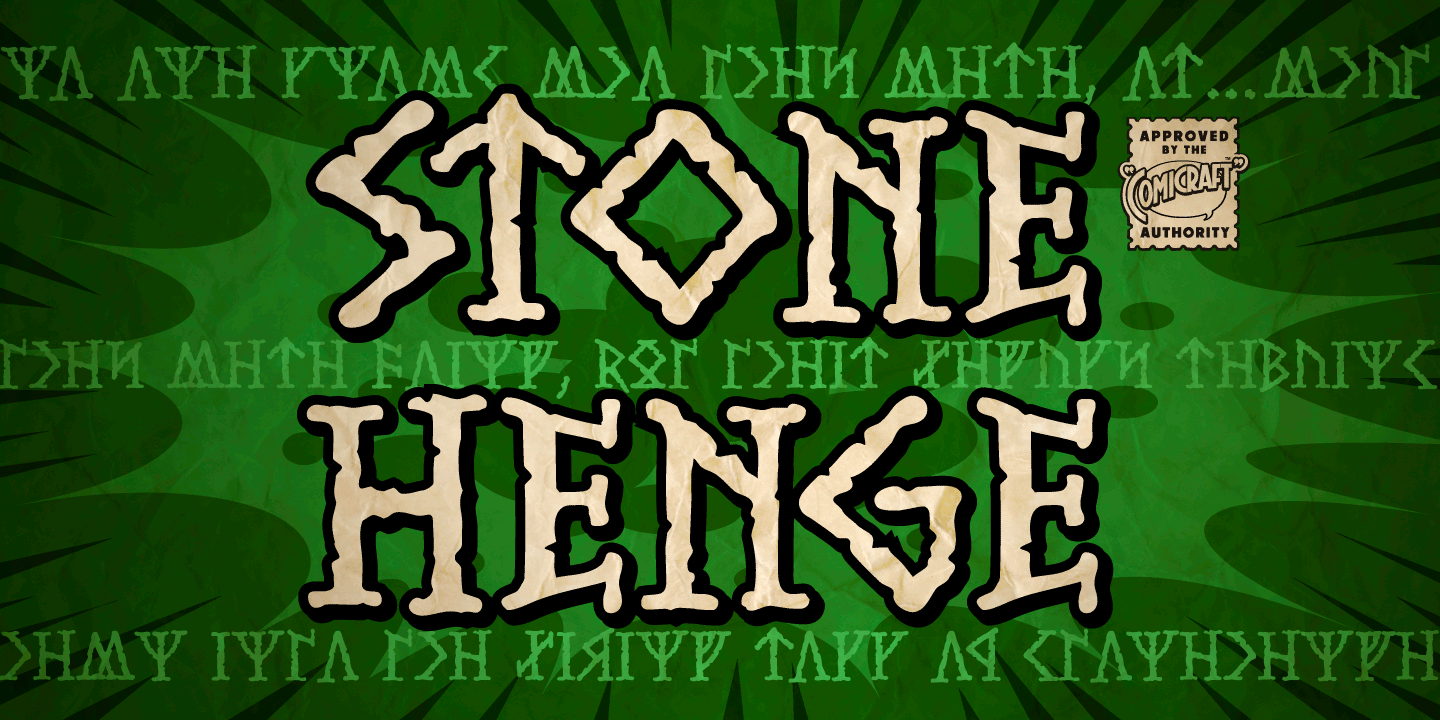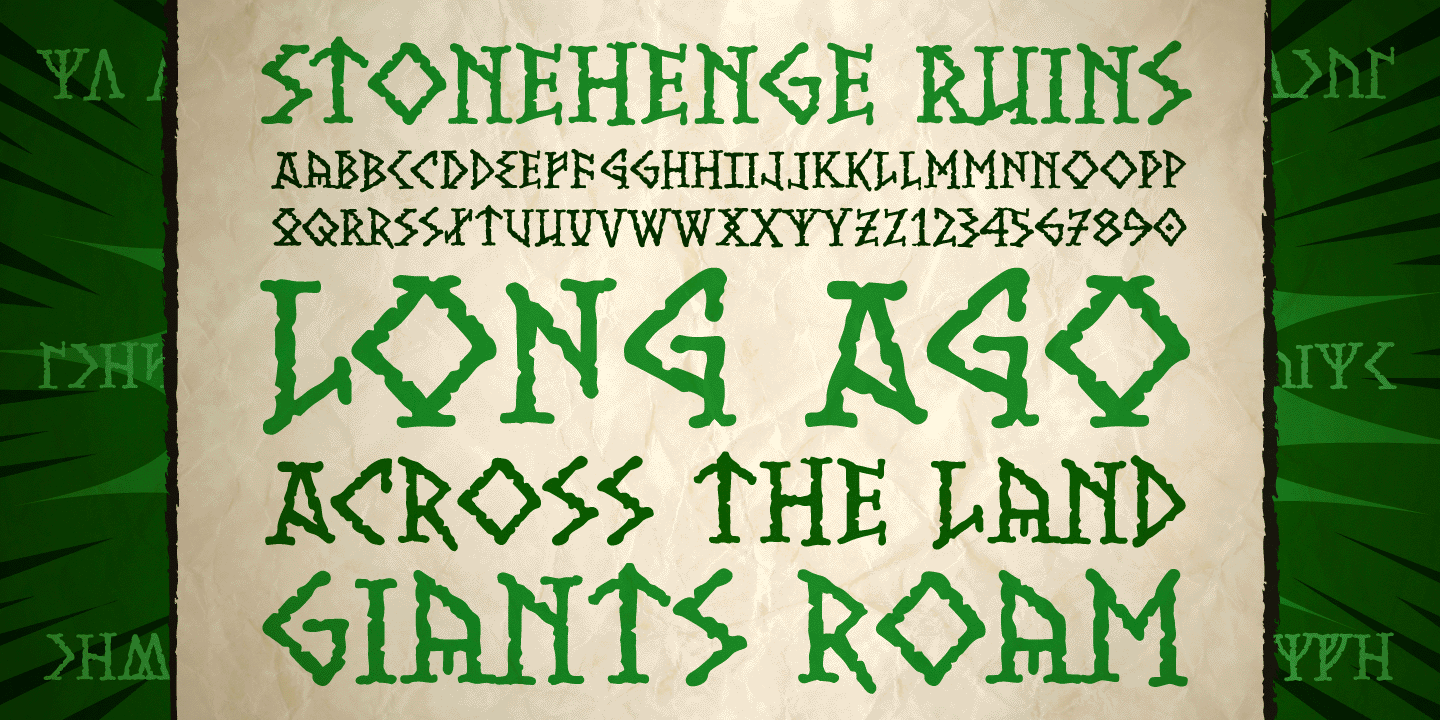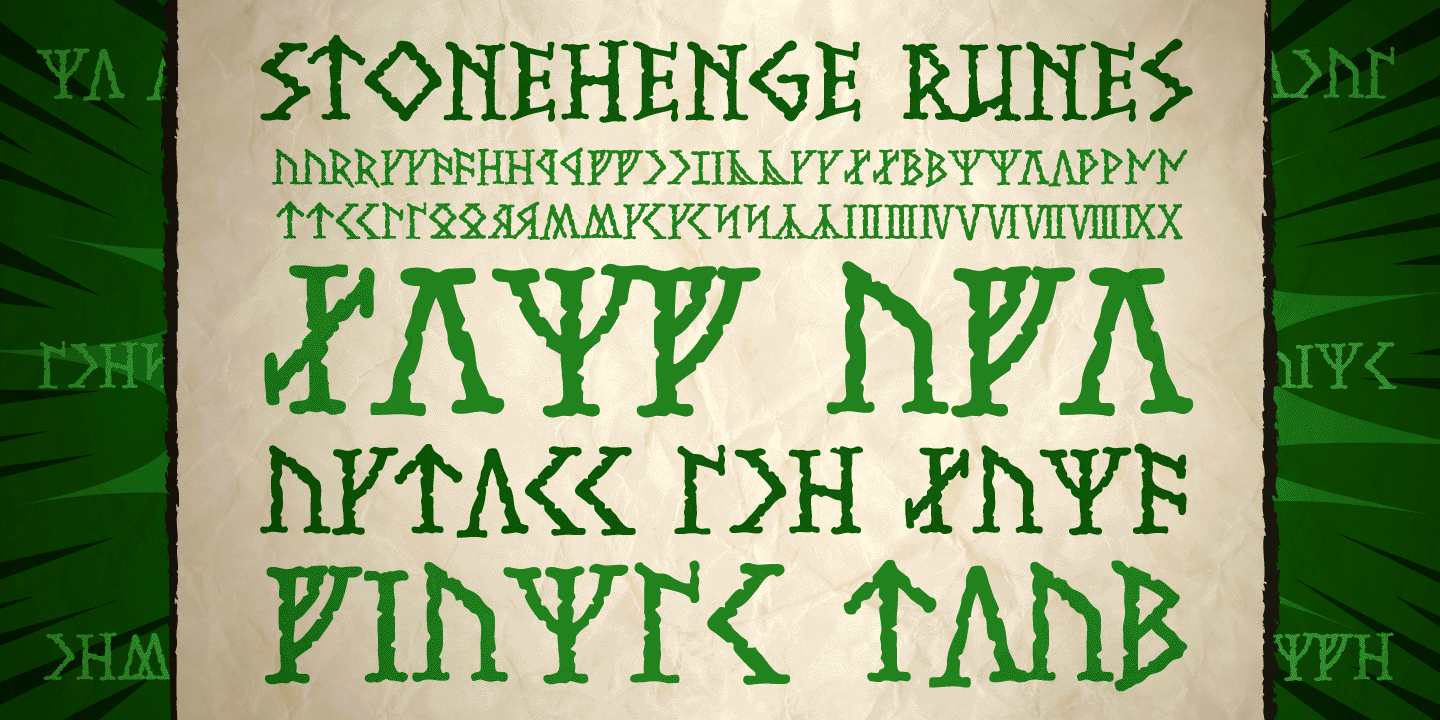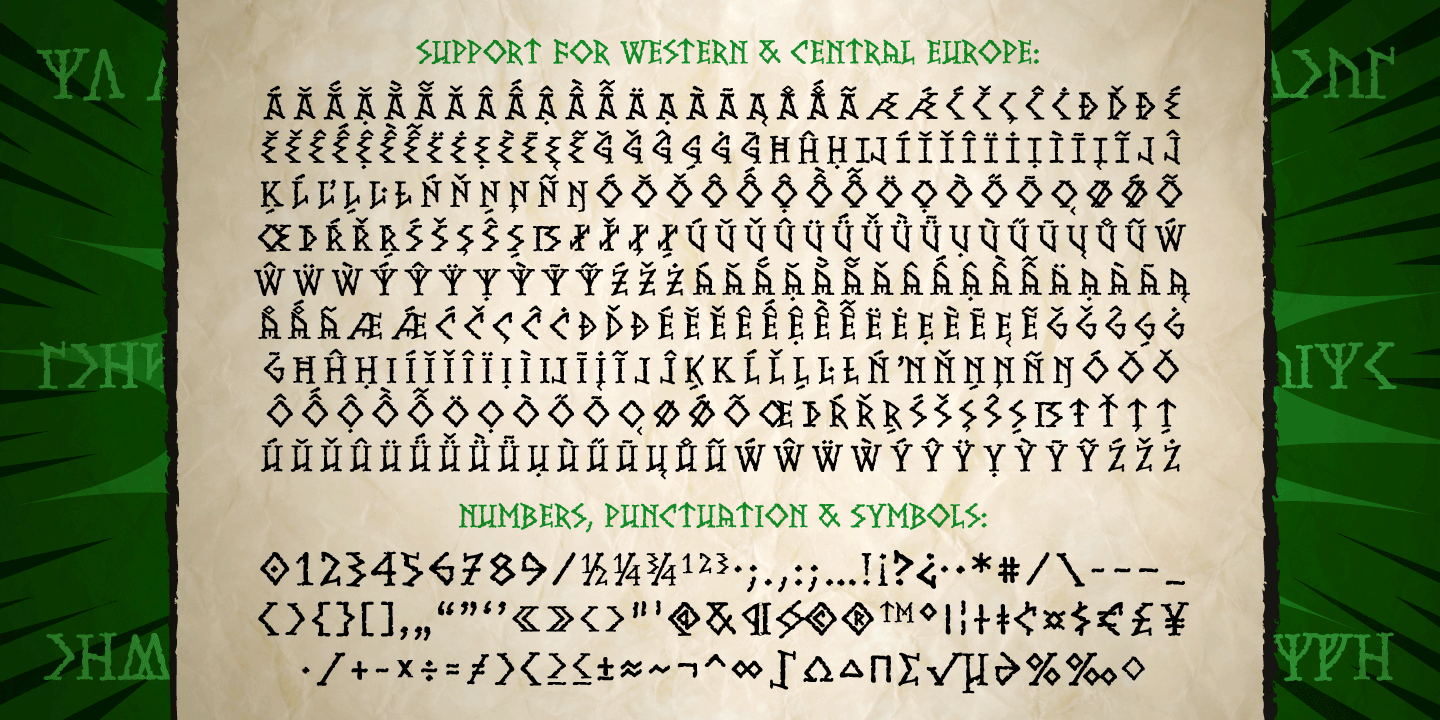
Stonehenge
Font Family by Comicraft Fonts
“The Runes have been cast! The Druids will gather around the standing stones of England at midnight and the Lamb will lie with the Devil as the Wicker Man burns! There are Daemons to be sated and only when Virgin Blood runs from the altar will the Soothsayers utter the Wisdom of the Ancients so that the Sun and Moon will remain safe in the Heavens… or just install our new Stonehenge font and get exactly the same effect… your leylines will never be straighter and you’ll be saying sooths till the small hours of the morning.
Two weights with alternate uppercase alphabets • Languages: Western & Central Europe”